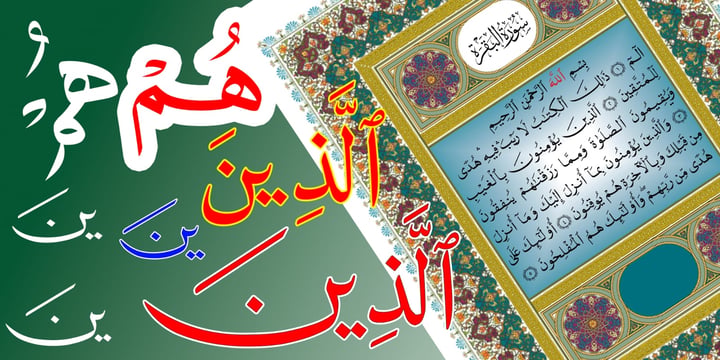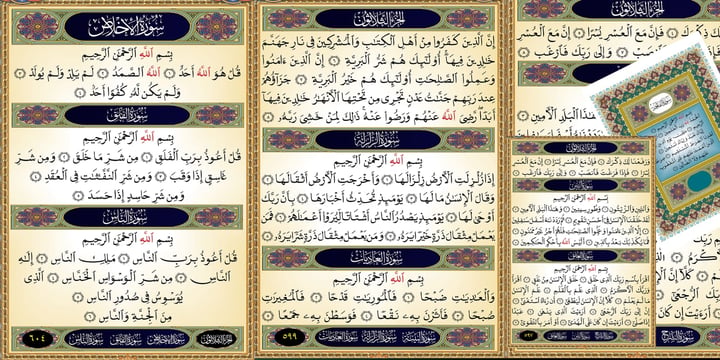
Quraan
The Quraan Font Collection is a comprehensive typographic system meticulously designed for Quranic text, focusing on both aesthetic precision and readability across various sizes and applications. It blends the authenticity of classical Arabic calligraphy with modern digital refinement to deliver a balanced visual experience suitable for premium print and digital use.
The collection includes dedicated fonts for Surah names and Juz’ titles, inspired by traditional calligraphic styles such as Thuluth and Naskh. Each glyph is crafted with precise diacritics, Quranic marks, and harmonious proportions to ensure both clarity and elegance.
Designed as a cohesive system, the fonts integrate seamlessly between the main Quranic text and its headings, making them ideal for Mushaf design, Islamic apps, artistic compositions, and specialized publishing projects.
Key Features:
Fully compliant with Quranic orthography.
Advanced diacritics and Quranic annotation support.
Dedicated display fonts for Surah and Juz’ titles.
Harmonious balance between ornamentation and readability.
Optimized for high-quality print and digital environments.
The Quraan Font Collection is a comprehensive typographic system meticulously designed for Quranic text, focusing on both aesthetic precision and readability across various sizes and applications. It blends the authenticity of classical Arabic calligraphy with modern digital refinement to deliver a balanced visual experience suitable for premium print and digital use.
The collection includes dedicated fonts for Surah names and Juz’ titles, inspired by traditional calligraphic styles such as Thuluth and Naskh. Each glyph is crafted with precise diacritics, Quranic marks, and harmonious proportions to ensure both clarity and elegance.
Designed as a cohesive system, the fonts integrate seamlessly between the main Quranic text and its headings, making them ideal for Mushaf design, Islamic apps, artistic compositions, and specialized publishing projects.
Key Features:
Fully compliant with Quranic orthography.
Advanced diacritics and Quranic annotation support.
Dedicated display fonts for Surah and Juz’ titles.
Harmonious balance between ornamentation and readability.
Optimized for high-quality print and digital environments.